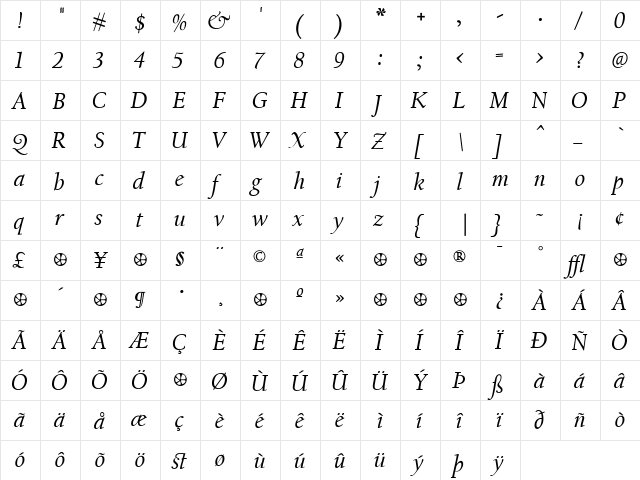
CalifornianText Italic
Design Context for CalifornianText Typeface
CalifornianText offers clean, dependable letterforms without strong stylistic allegiance, making it a practical choice for designers who need flexibility. The slanted form adds forward momentum and visual energy.
Pro Tip: Use CalifornianText for emphasis, pull quotes, and subheadings where its slanted energy can add rhythm to the layout.